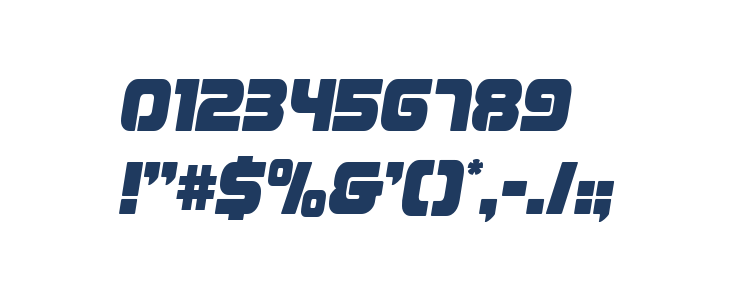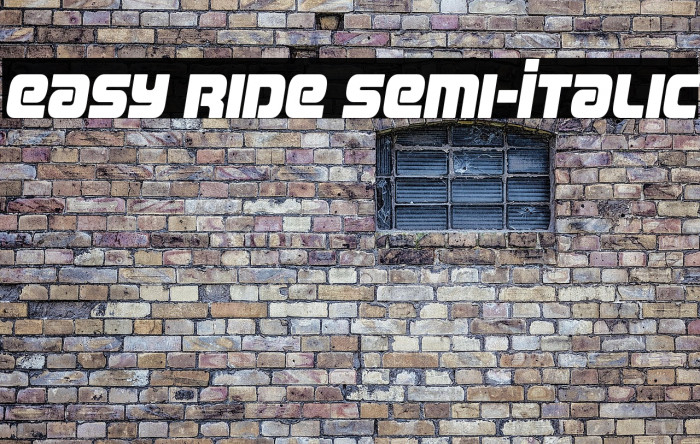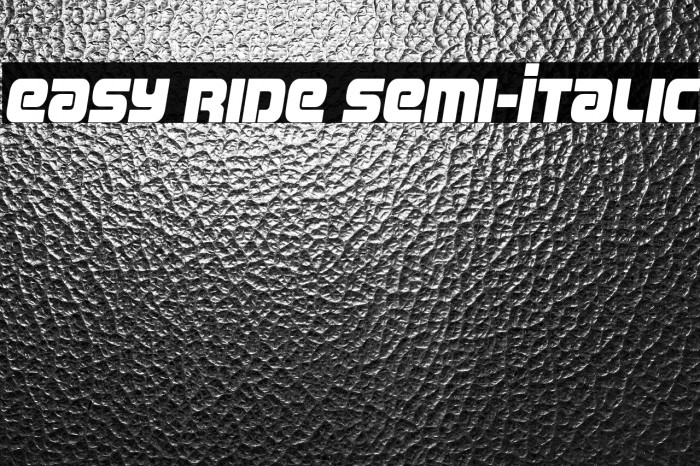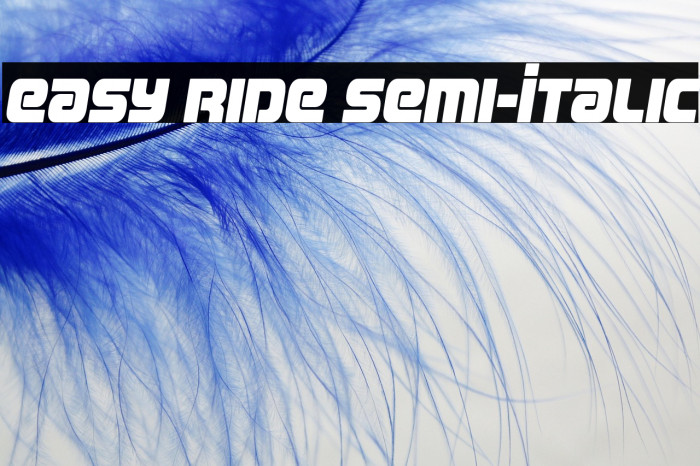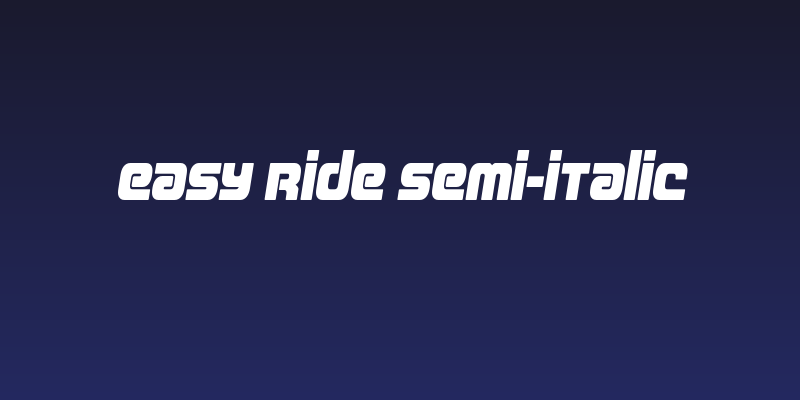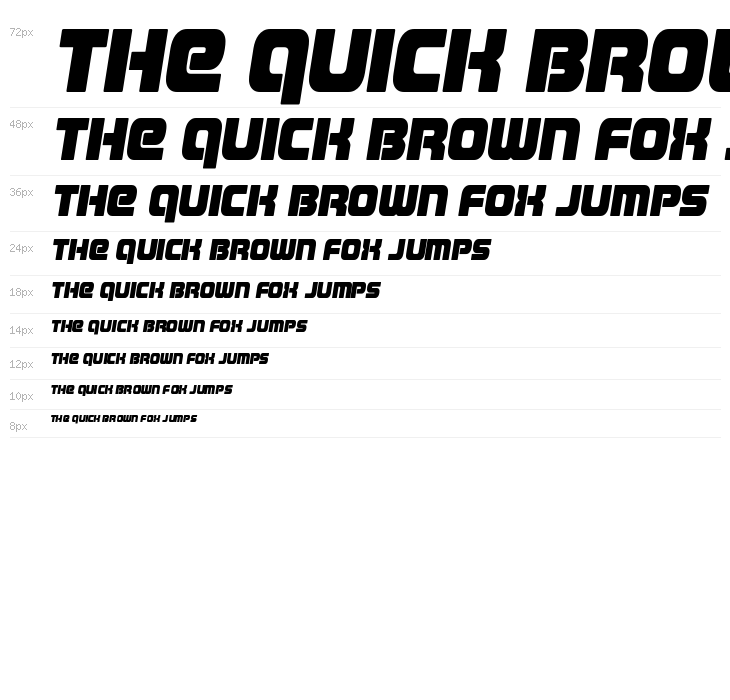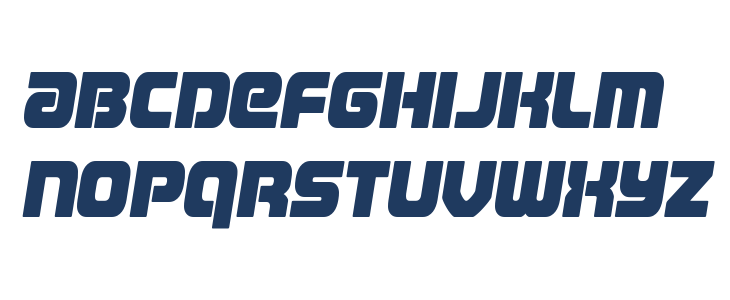
Easy Ride Semi-Italic Font
Easy Ride Semi-Italic Description
This font features a bold, semi-italic style with a modern, dynamic appearance. The characters are slightly slanted, giving a sense of motion and energy. The strokes are thick and consistent, providing a strong visual impact. The design includes rounded edges and smooth curves, which add a touch of softness to the otherwise robust structure. The font maintains a uniform width across all characters, ensuring readability and balance. It is well-suited for projects that require a contemporary and energetic look, such as sports branding, automotive advertisements, or tech-related designs.
| Proposed Projects | Ideal for sports branding, automotive advertisements, tech-related designs, and dynamic headlines. |